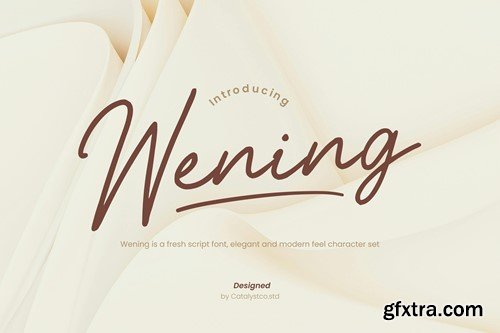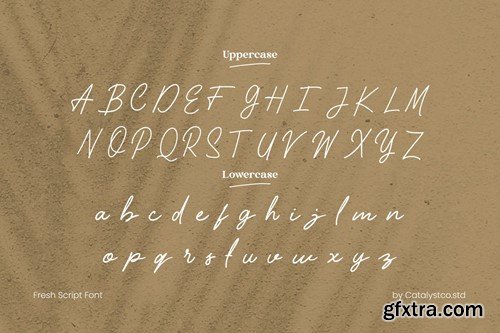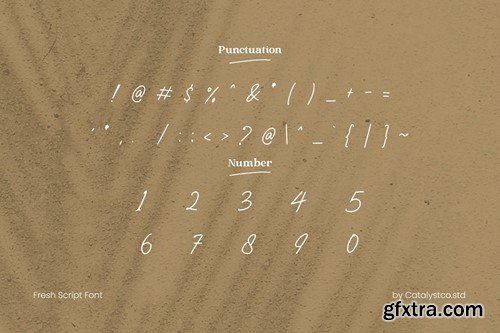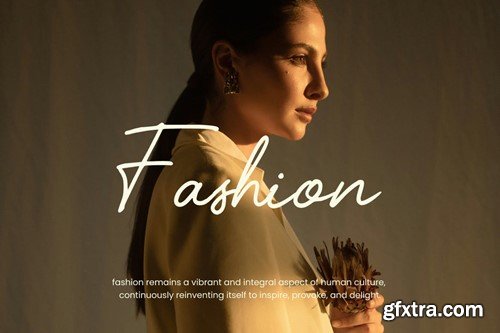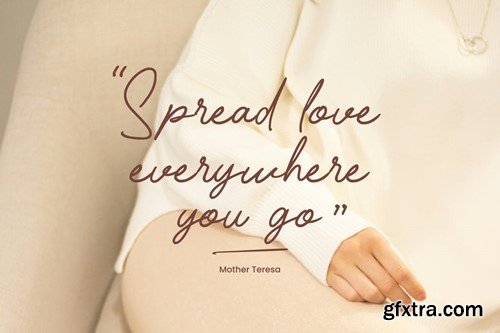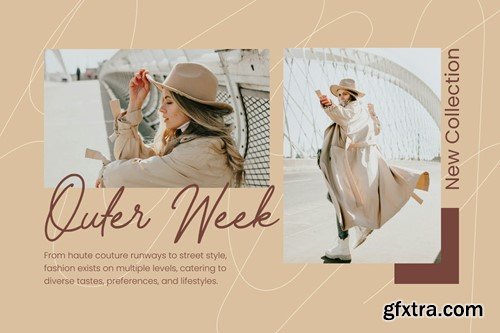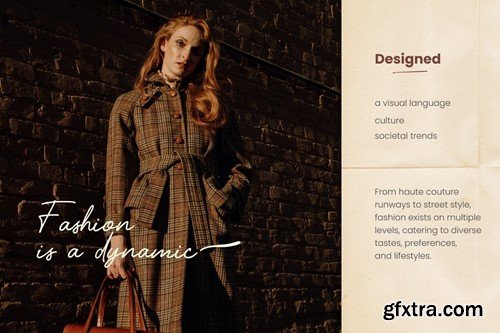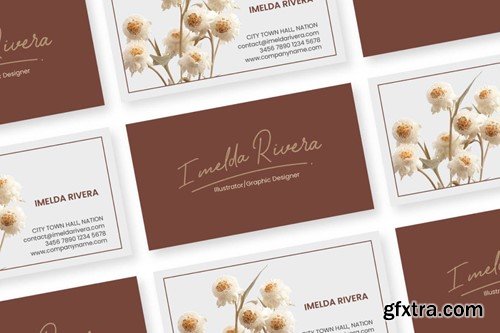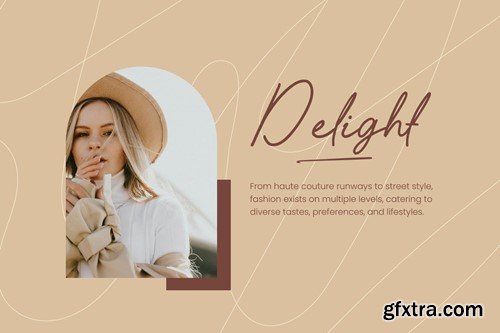
温宁新鲜体Font GEGAGV9
Wening Fresh Script Font GEGAGV9
Wening Fresh Script Font
Wening Fresh Script Font typeface excellent used for the manufacture quote text, logotype, header magazine, and many more.
• Uppercase & Lowercase
• Numeral & Punctuations